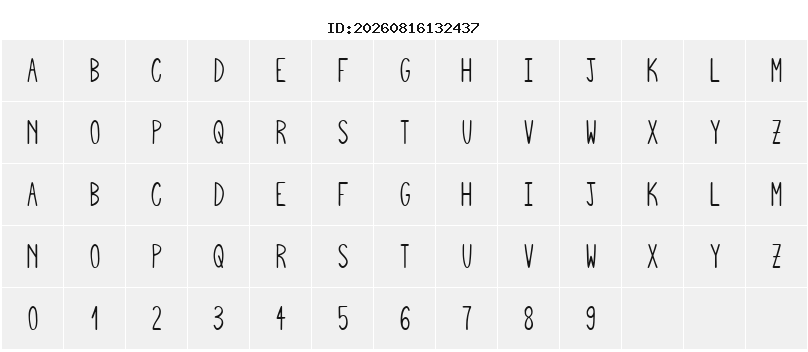
• Font Name: Squiggly Asta
• Full Font Name: Squiggly Asta
• Designer: Ana Parracho
About Squiggly Asta.ttf
Squiggly Asta.ttf is a modern, elegant sans-serif font designed for ultimate readability and visual harmony. Perfect for branding, headlines, web design, and print materials.